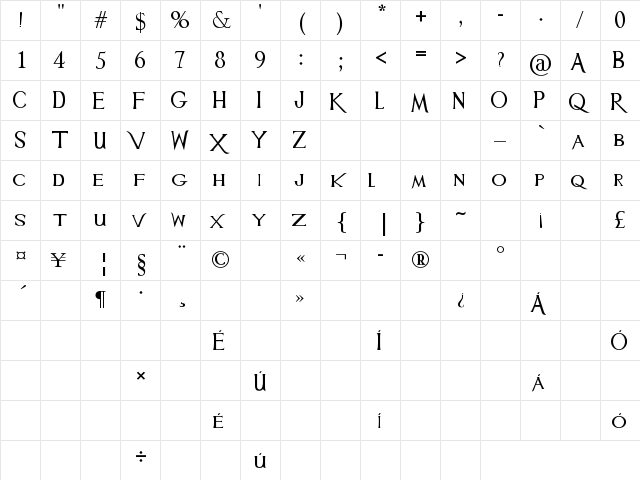
Mulan Regular
Design Context for Mulan Typeface
Mulan takes a measured approach to typography — its balanced proportions and neutral character make it a reliable workhorse for both digital and print work.